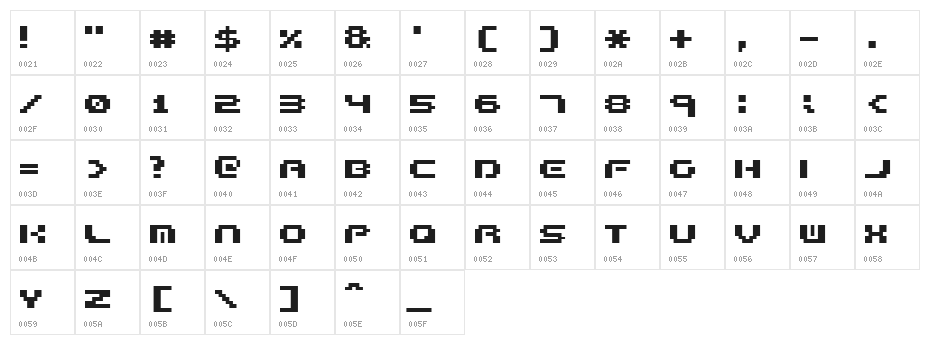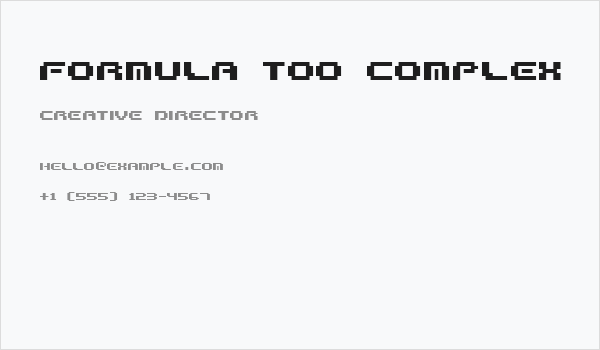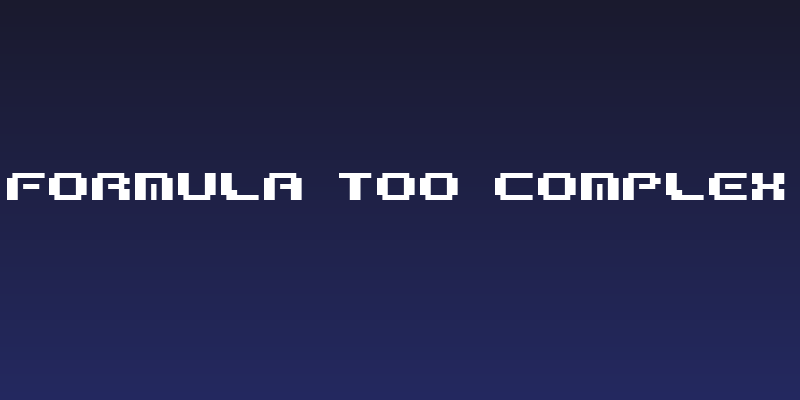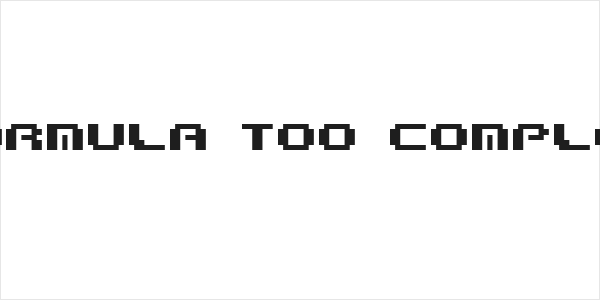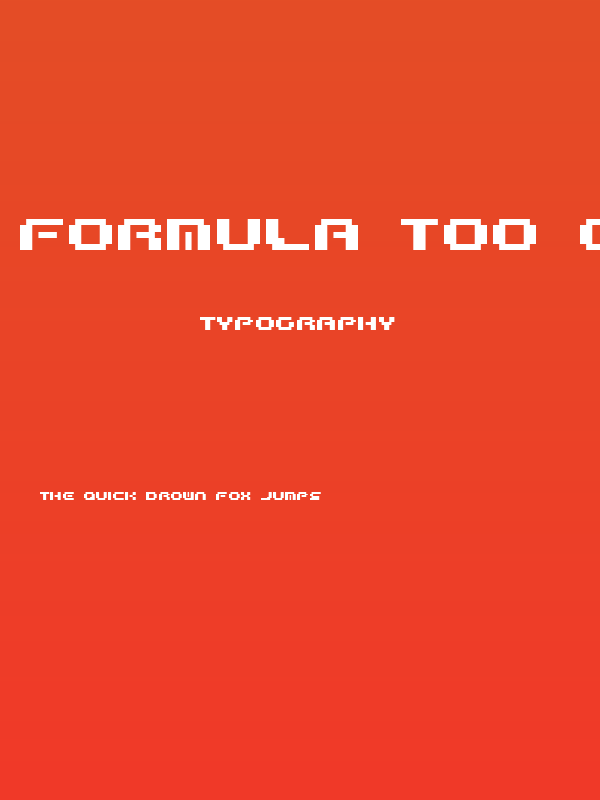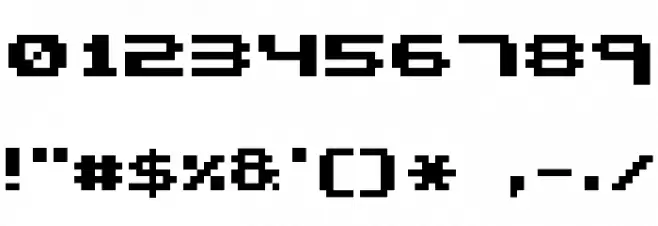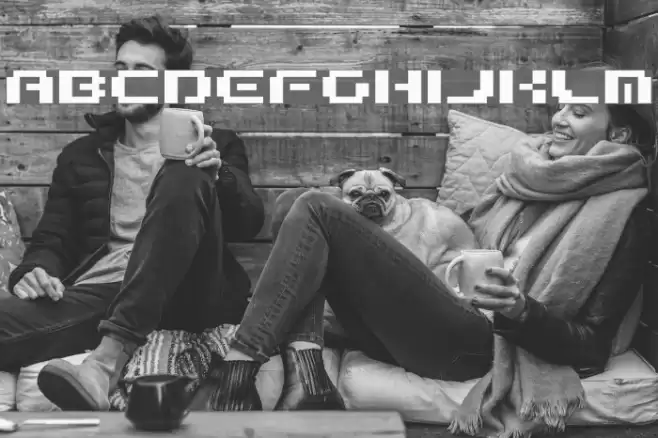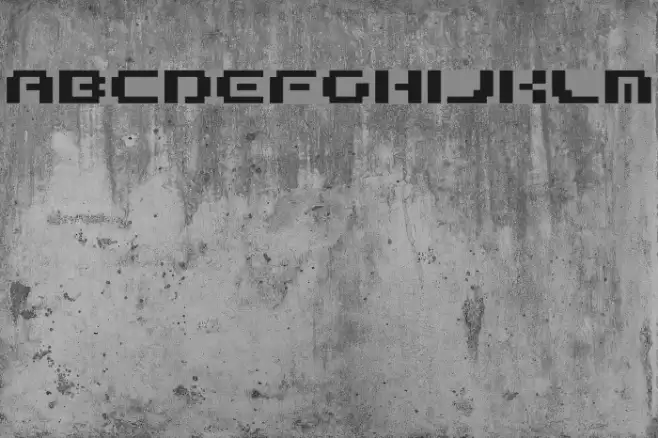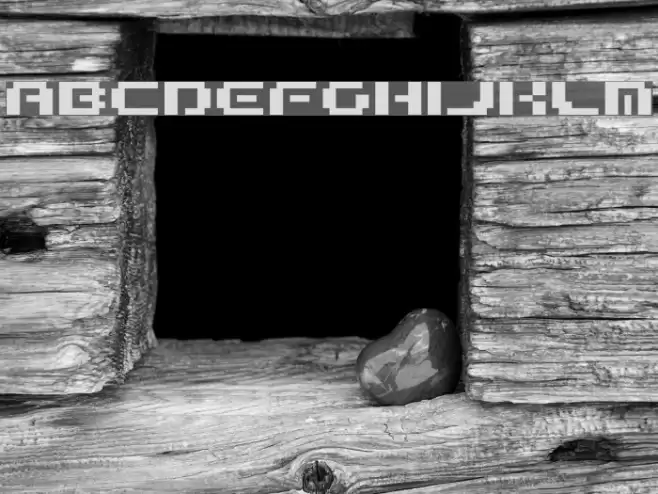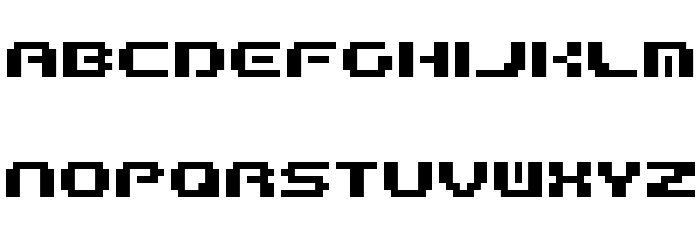
Formula too complex Font
Formula too complex Description
This font features a bold, pixelated design reminiscent of early digital displays and retro video games. Each character is constructed with blocky, square shapes, giving it a distinctly digital and geometric appearance. The uniformity in stroke width across all characters contributes to a cohesive and structured look. This font is highly legible at larger sizes, making it ideal for attention-grabbing headlines or titles. The characters are evenly spaced, maintaining a consistent rhythm throughout the text. Its nostalgic style evokes a sense of vintage computing and arcade aesthetics, appealing to those looking to capture a retro-futuristic vibe.
| Overall Style | Retro, Digital |
| Proposed Projects | Ideal for video game design, retro-themed posters, digital art projects, and tech-related branding. |